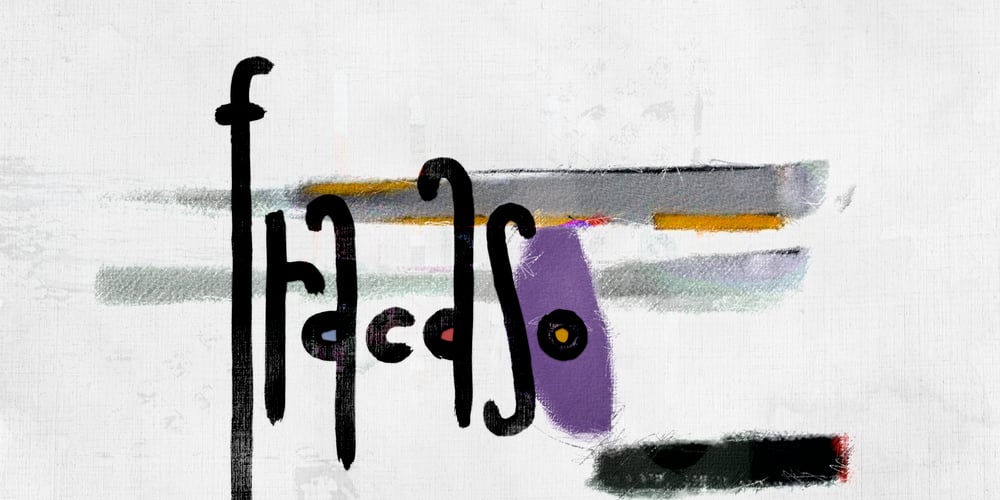
fracaso Font Family was designed by Vladimir Tsagolov and published by LomoHiber. fracaso contains 3 styles and family package options. fracaso is an experimental font and was inspired by abstract / cubism artworks. My initial goal was to made it have a rather surreal and fancy mood.I painted the glyphs with seamless strokes and achieved an unusual style by developing an individual form for each glyph. So, due to contrasting various letter height and form each word have a unique, catchy, surreal rhythm.You may want to have fracaso font if you need to make a design with an abstract, surreal look for music / art subject. Great fit for posters, covers, clothes prints, packaging, logos, and everything you want to grant a fancy artistic mood.Features: Carefully tuned kerning (preview above doesn’t always show it correctly) 3 Font styles each fits better for different design style Stylistic Alternates for each small letter and digit (mostly for the “original” and “dirty ends” style) Contextual Alternates for small letter and digit pairs; for punctuation depending on a glyph height 10 Standard and 7 Stylistic (Discretionary) ligatures for most common letter pairs Wide Latin language support (Western European, Central European, South Eastern European) If you have some issues or questions, please let me know: lhfonts@gmail.comHope you’ll enjoy using fracaso!